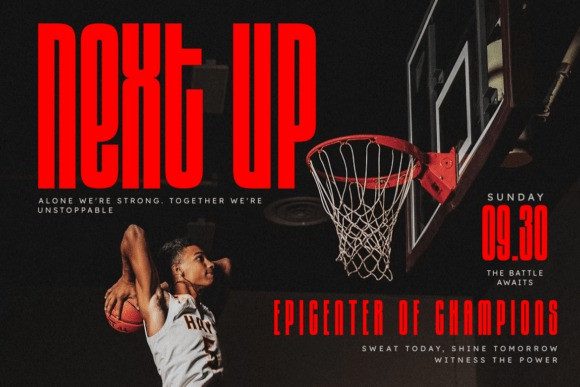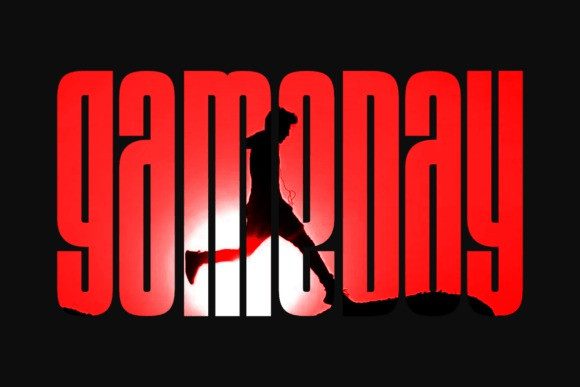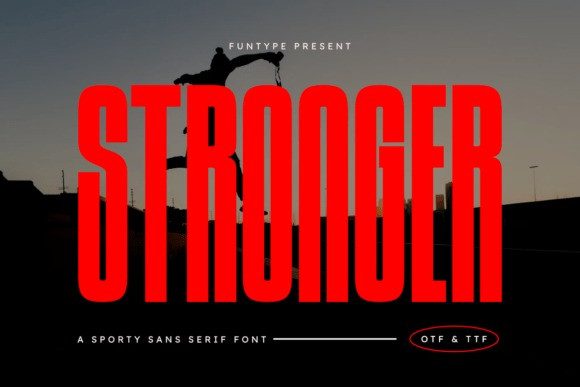
Stronger Sans Serif Font
Stronger Sans Serif Font is a bold and modern sans serif font with a powerful, confident look. Featuring solid letterforms and clean edges, this font is ideal for impactful headlines, branding, posters, apparel prints, magazine layouts, and digital designs. Perfect for fashion, sports, advertising, and editorial projects, Stronger brings a strong visual statement with a contemporary style.